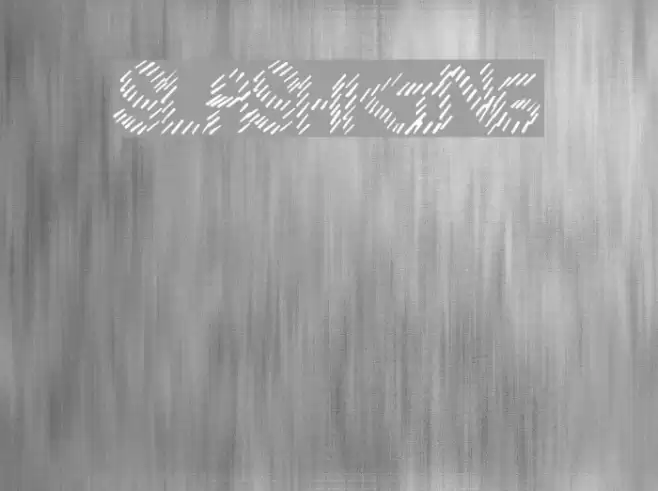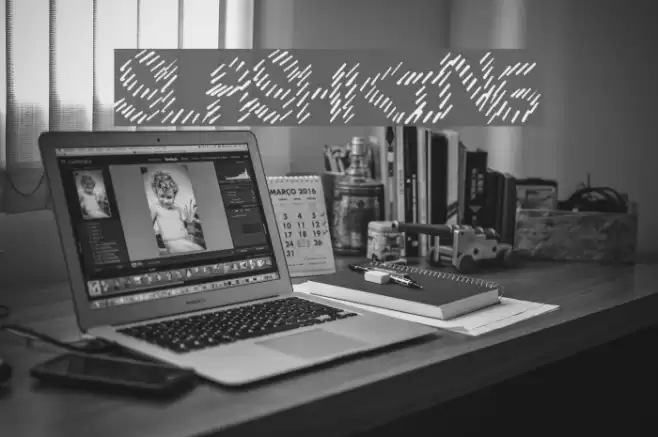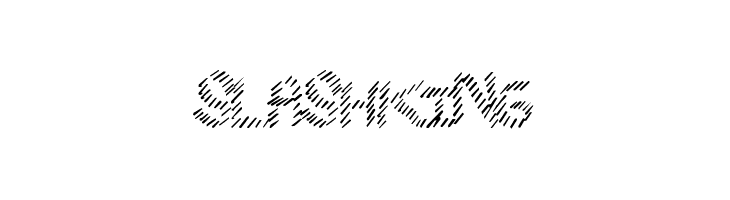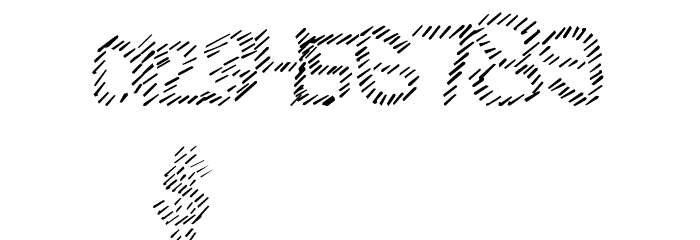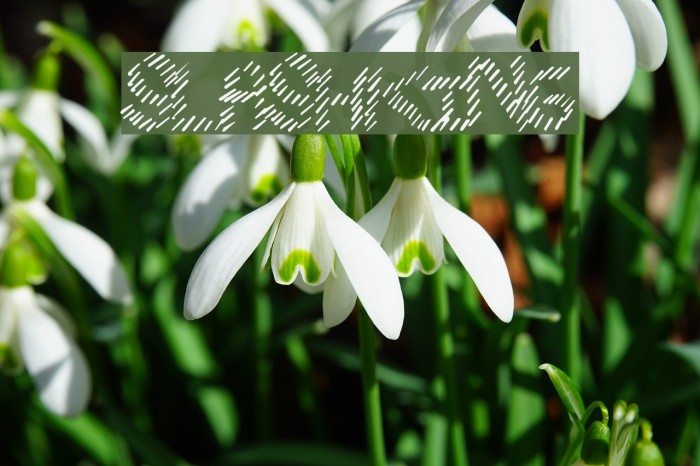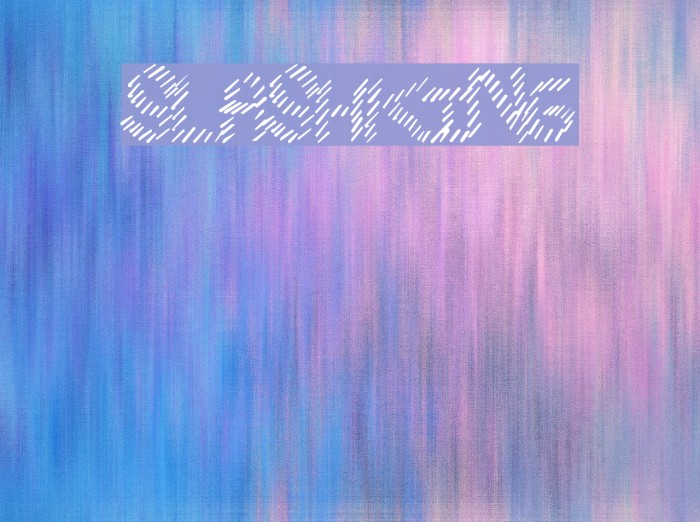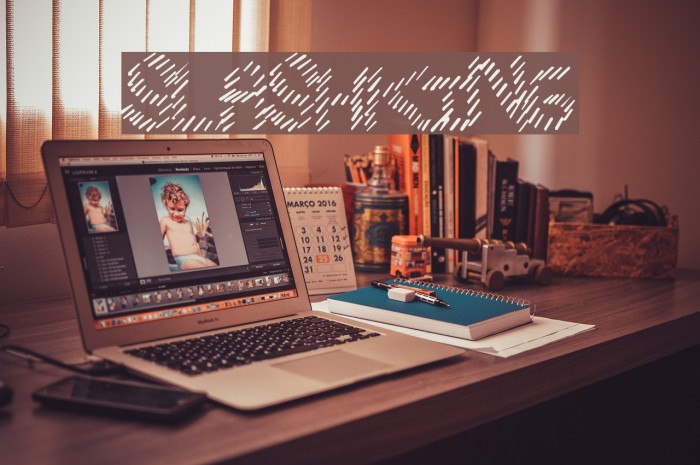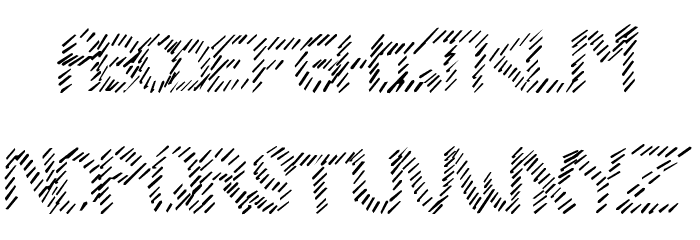
SlashKing Font
SlashKing Description
This font features a unique, slashed design that gives it a dynamic and edgy appearance. Each character is composed of diagonal lines that create a sense of movement and energy. The uppercase and lowercase letters maintain a consistent style, with the slashes providing a textured look. Numbers and special characters follow the same pattern, ensuring uniformity across all glyphs. The font's distinct style makes it stand out, ideal for projects that require a bold and unconventional aesthetic.
A dynamic, slashed font with a textured and energetic appearance from Uncategorized fonts.
- Proposed Projects: Ideal for branding, posters, album covers, and any design that seeks to convey movement and modernity.